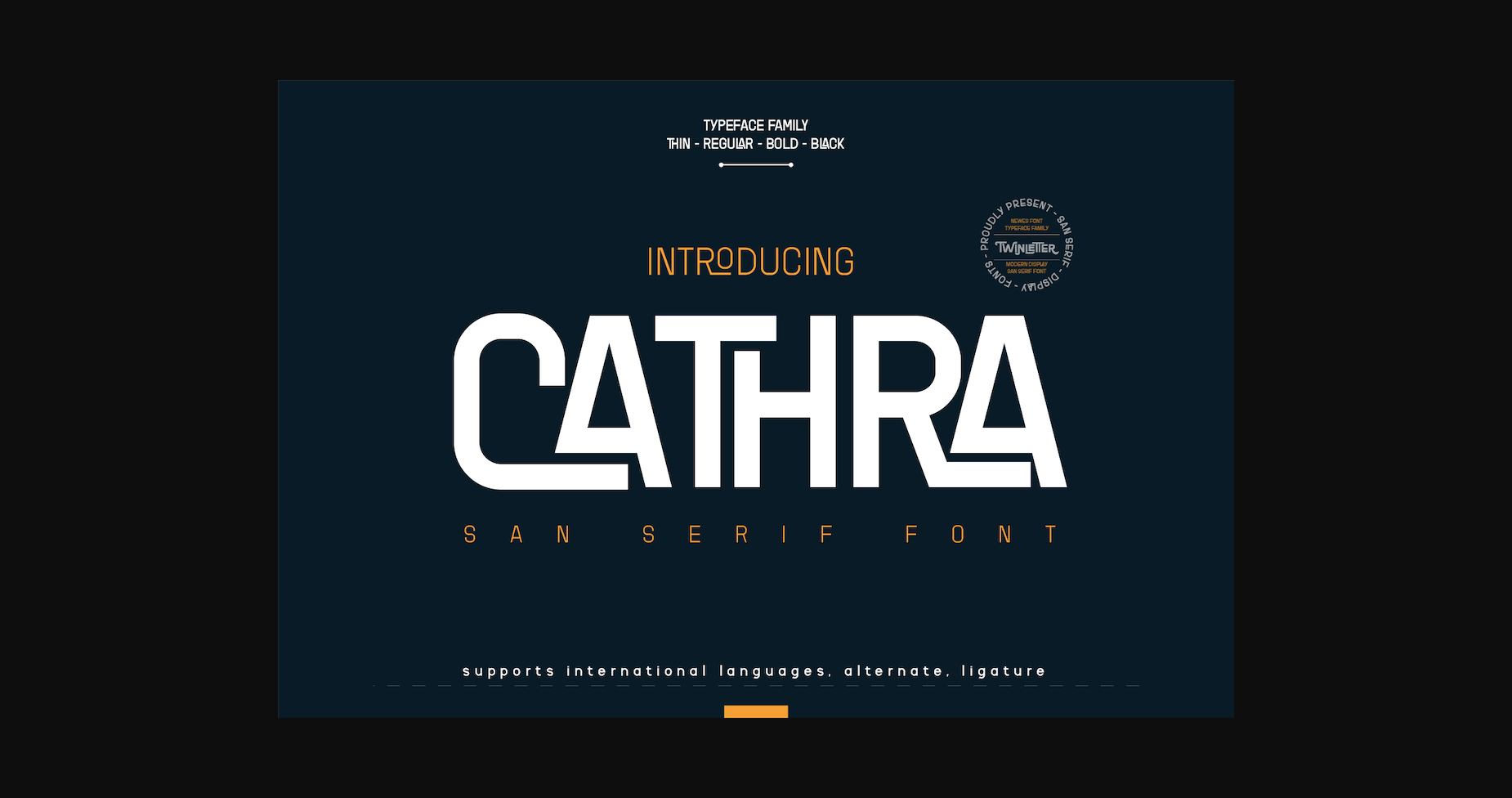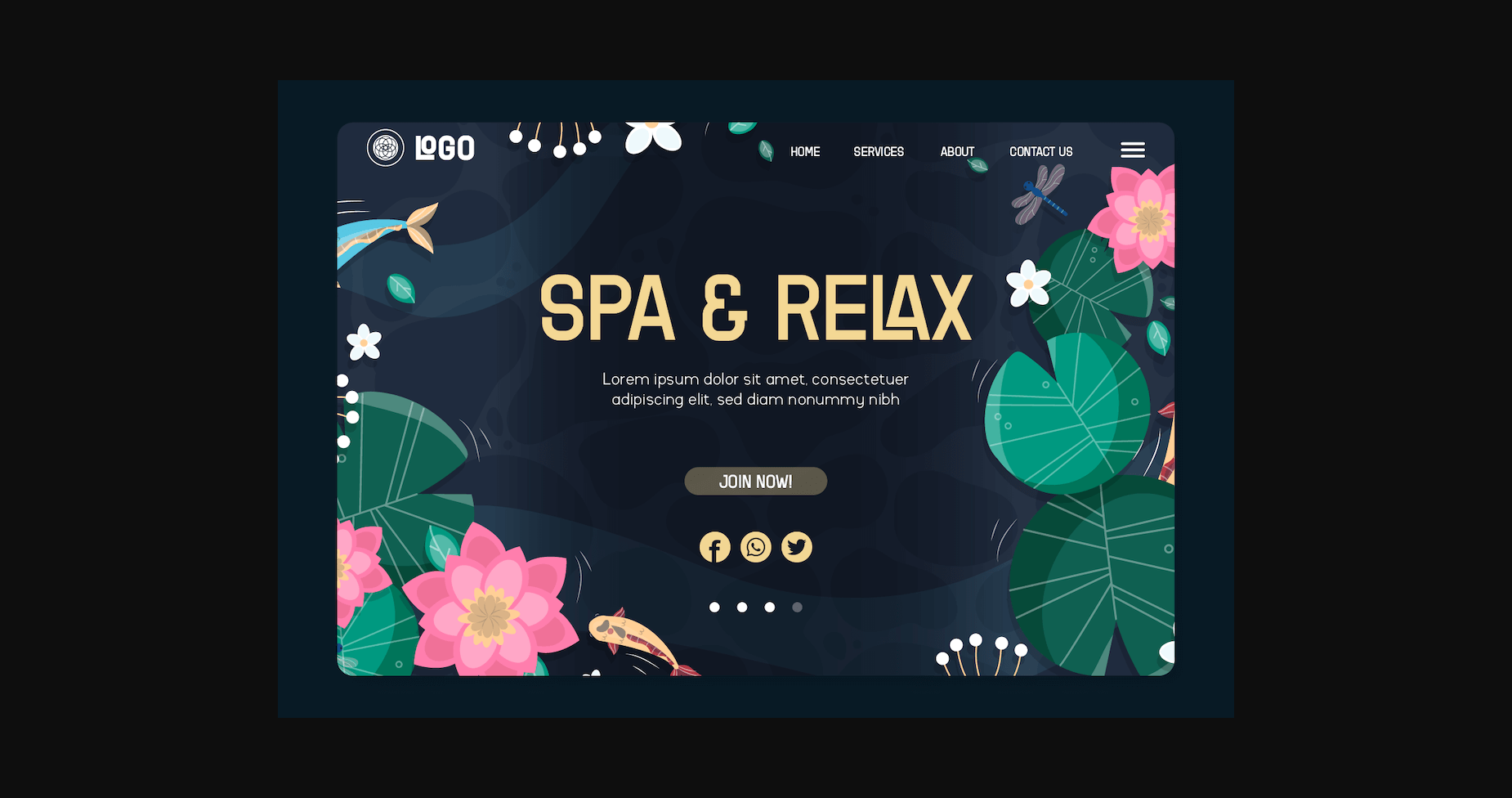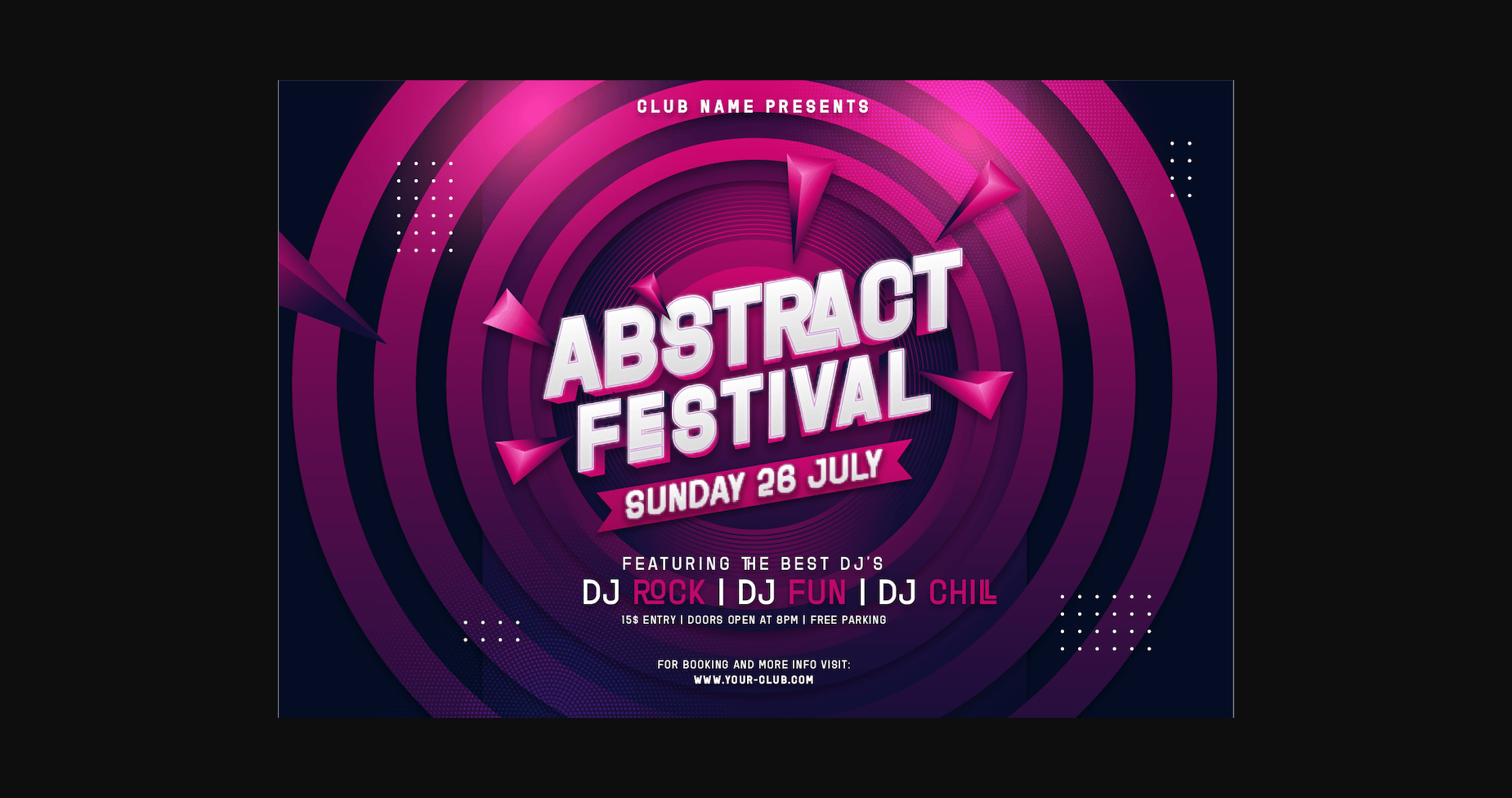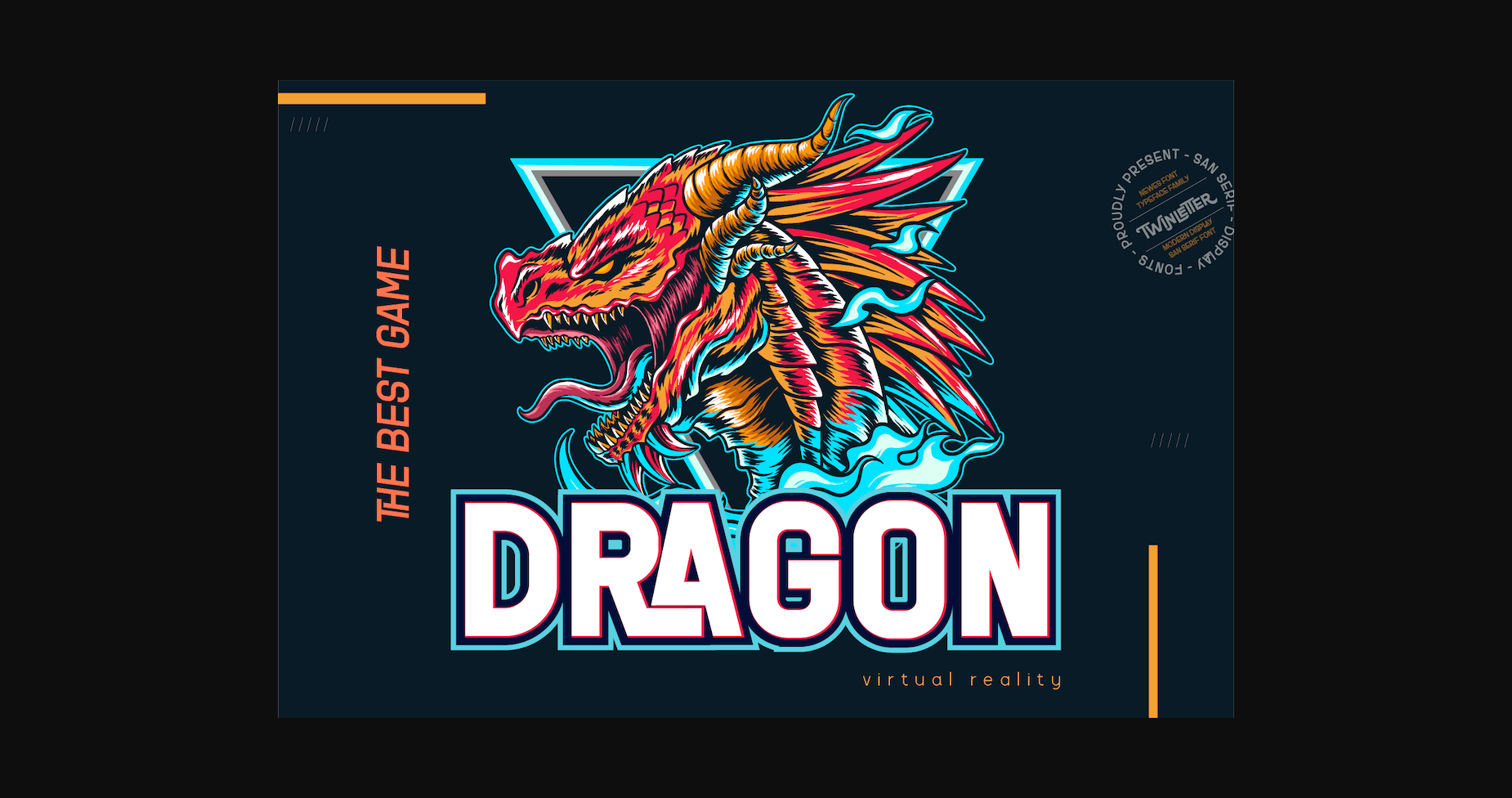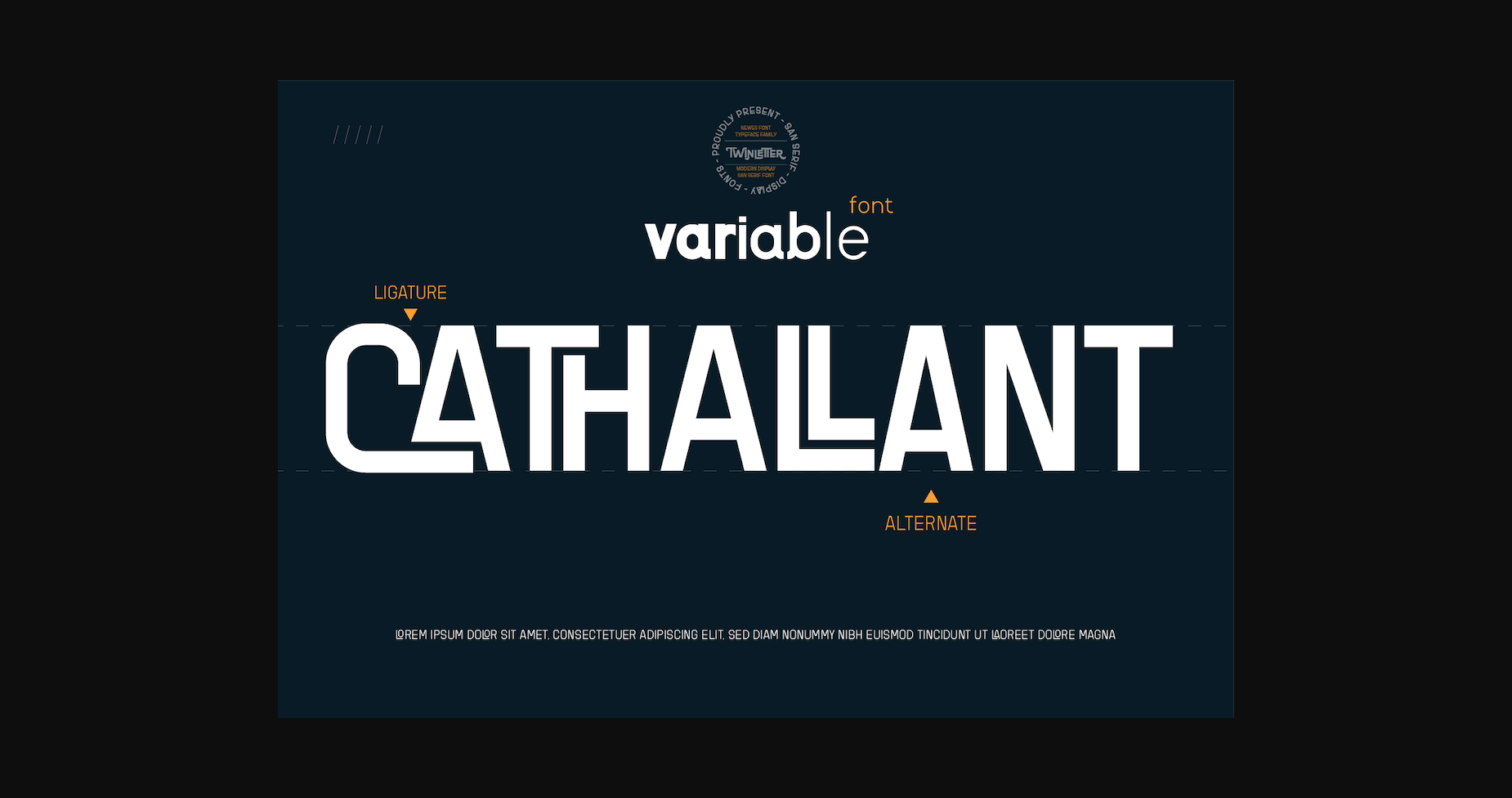
About Cathra Font
Cathra is a cool, bold and modern looking sans serif font. Expertly designed to make your creation look out of this world, this font will look gorgeous on a variety of ideas.